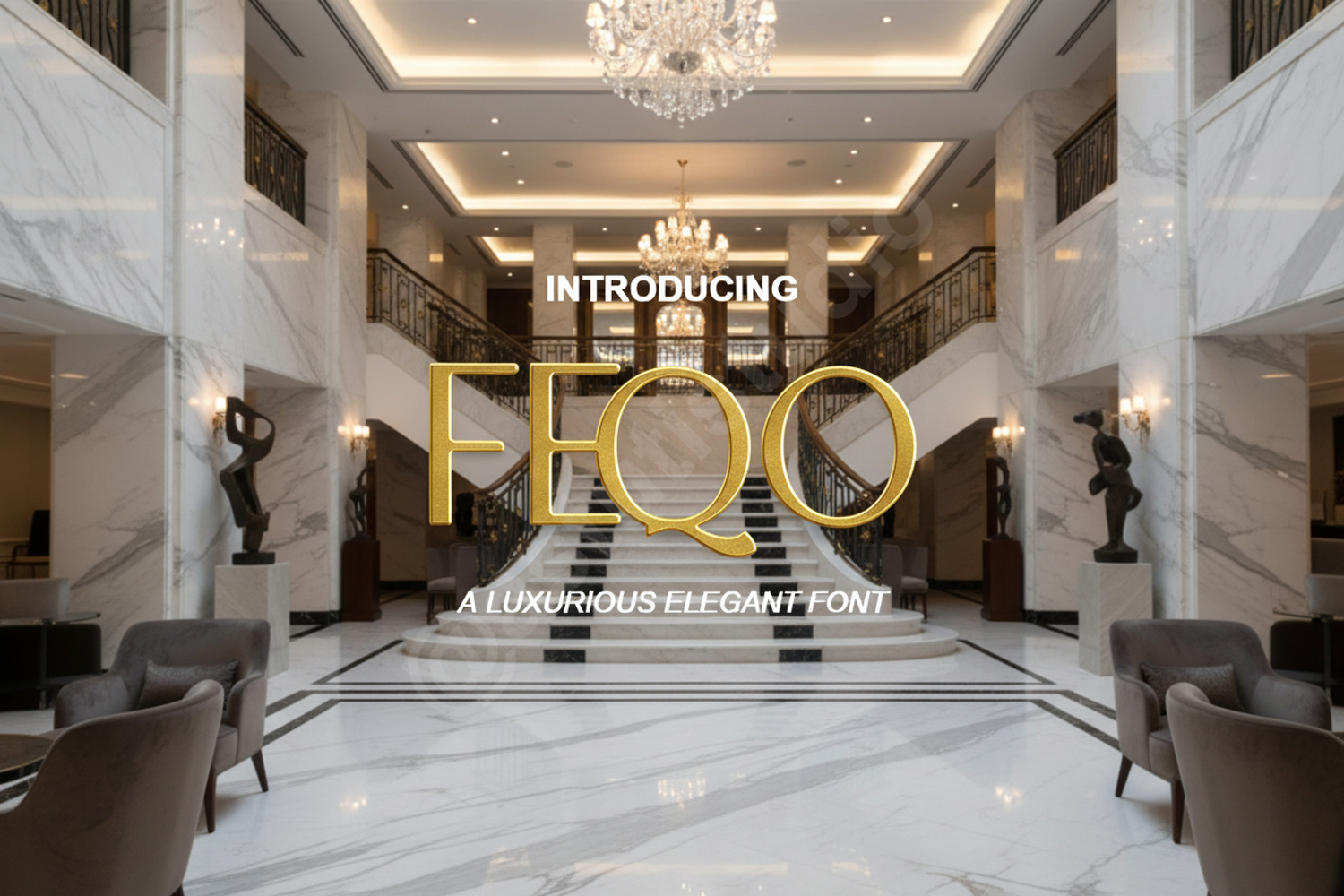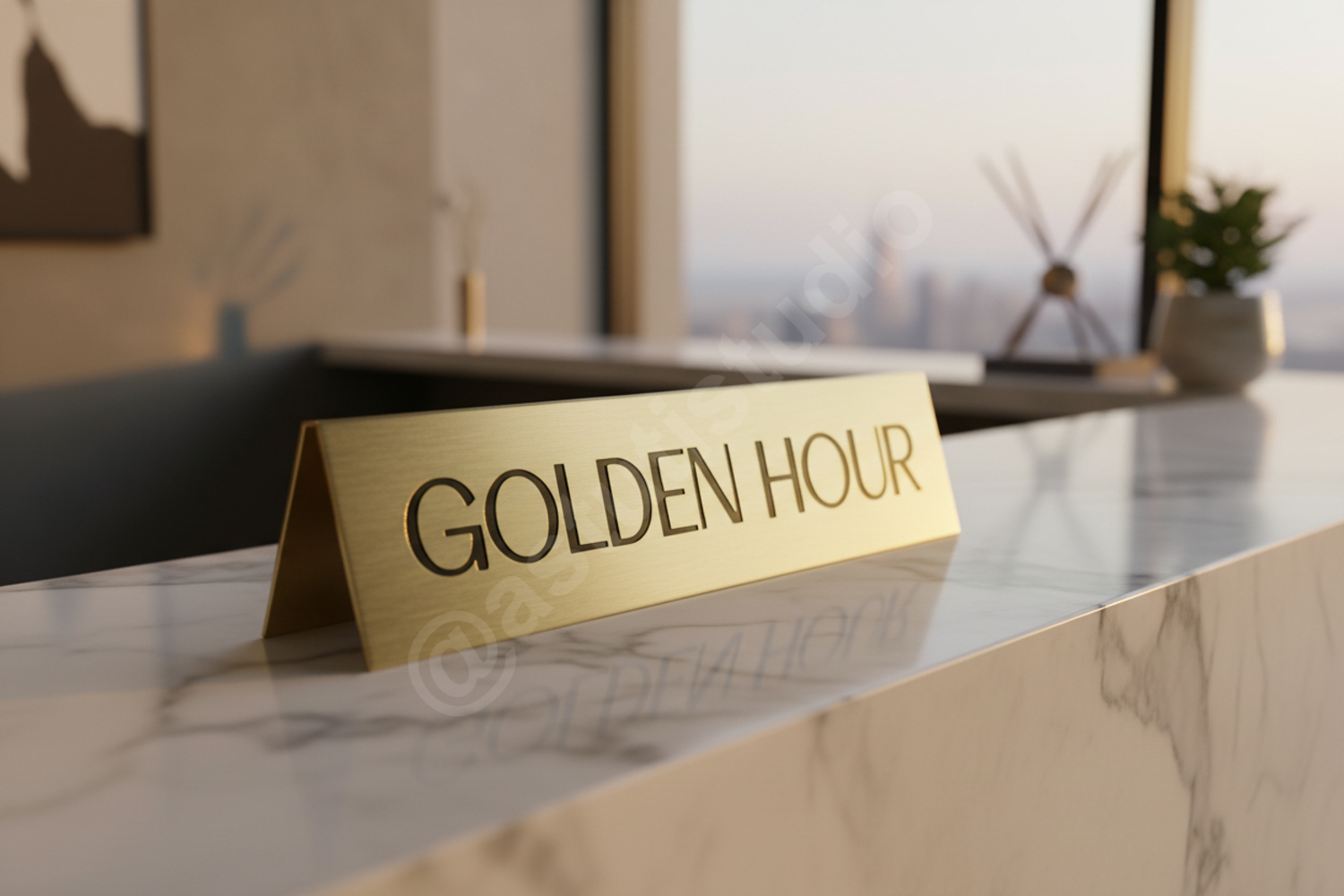
Feqo - Sophisticated Modern Sans Serif
Feqo
Elevate your design projects with Feqo, a premium sans serif font crafted for modern aesthetics. Feqo combines clean geometric lines with subtle contemporary touches, making it a versatile powerhouse for any creative toolkit. Whether you are building a high-end brand or designing a sleek editorial layout, this font delivers professional clarity and timeless style.
- Comprehensive uppercase and lowercase character sets
- Extensive punctuation and numerical symbols
- Full multilingual support for international projects
- Professional Branding: Create impactful logos and cohesive corporate identities.
- Editorial Design: Ideal for magazine headlines, body copy, and book covers.
- Digital Marketing: Enhance website user interfaces, social media graphics, and digital advertisements.
- Luxury Packaging: Perfect for high-end product labels, boxes, and retail tags.
- Modern Stationery: Elevate wedding invitations, business cards, and minimalist event signage.